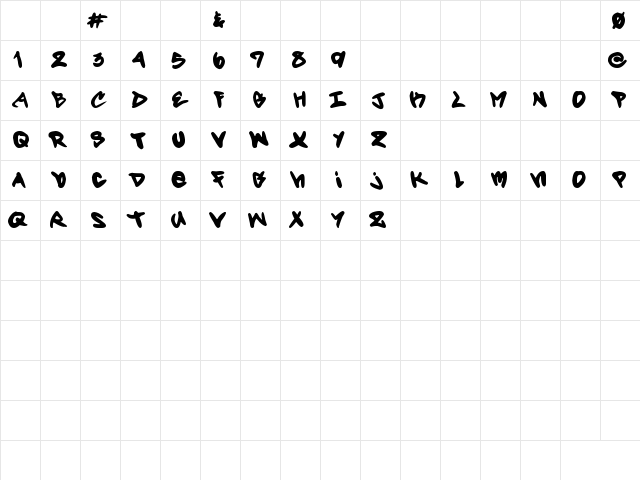
Forty Script Regular
Design Context for Forty Script Typeface
Forty Script flows with the natural rhythm of handwritten lettering, making it ideal for designs that call for warmth and personal expression.
Font Pairing: Combine Forty Script with a simple geometric sans for maximum contrast — the tension between flowing curves and clean structure is a classic typographic pairing.
Pro Tip: Use Forty Script for short runs of text — names, titles, or taglines. Extended body copy in script faces tires the eye quickly.